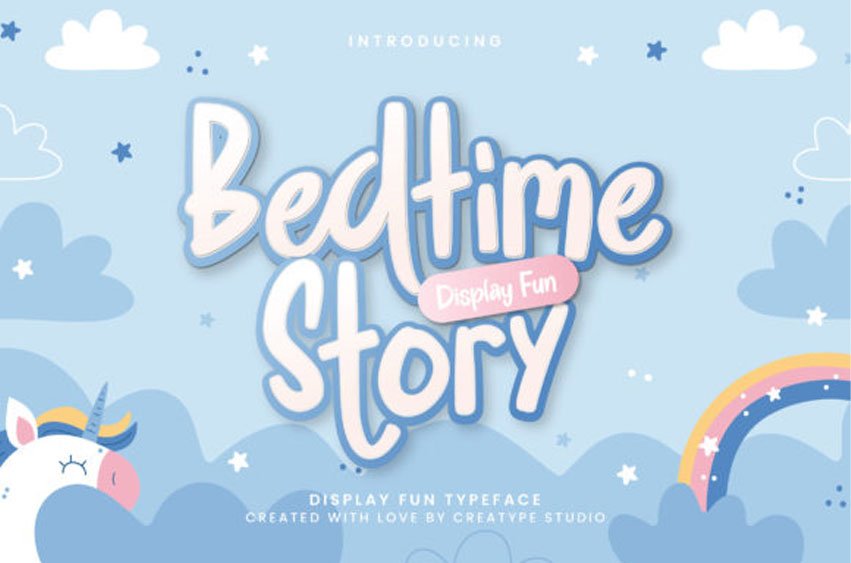
Bedtime Story Font is a cute and friendly display font. Whether you use it for cartoon related designs, children games or just any creation that requires a lovely touch, this font will be an amazing choice.